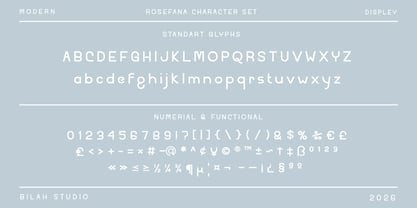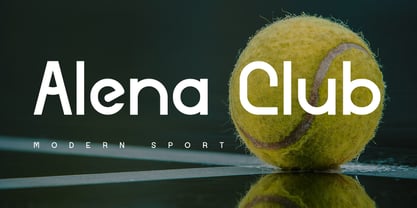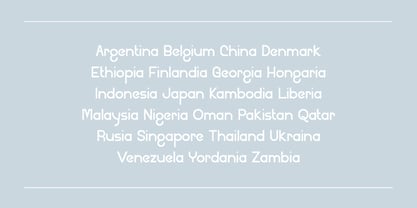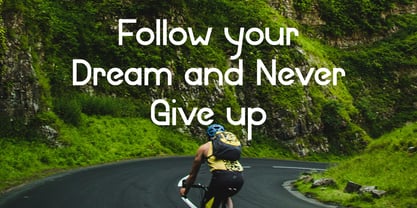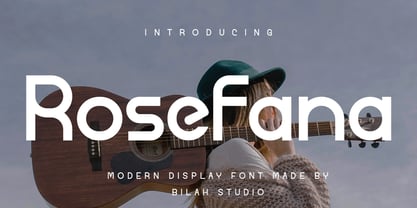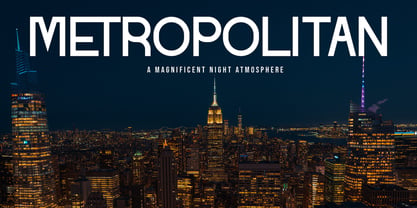
Rosefana
von Bilahstudio
Die Schriftfamilie Rosefana wurde von Yudi Pratama Chandra entworfen und von Bilahstudio veröffentlicht. Rosefana enthält 1 Stile. Mehr über diese Familie
Rosefana is a simple and unique typeface, a blend of sans and display fonts with a modern style. Rosefana is here to help make your design projects more stunning and engaging, suitable for logos, branding, headers, titles, and various other applications. With precise kerning and spacing, it's specifically designed for impressive logos and branding materials. Rosefana ensures your designs leave a lasting impression. Elevate your design projects with Rosefana today.
Designer: Yudi Pratama Chandra
Foundry: Bilahstudio